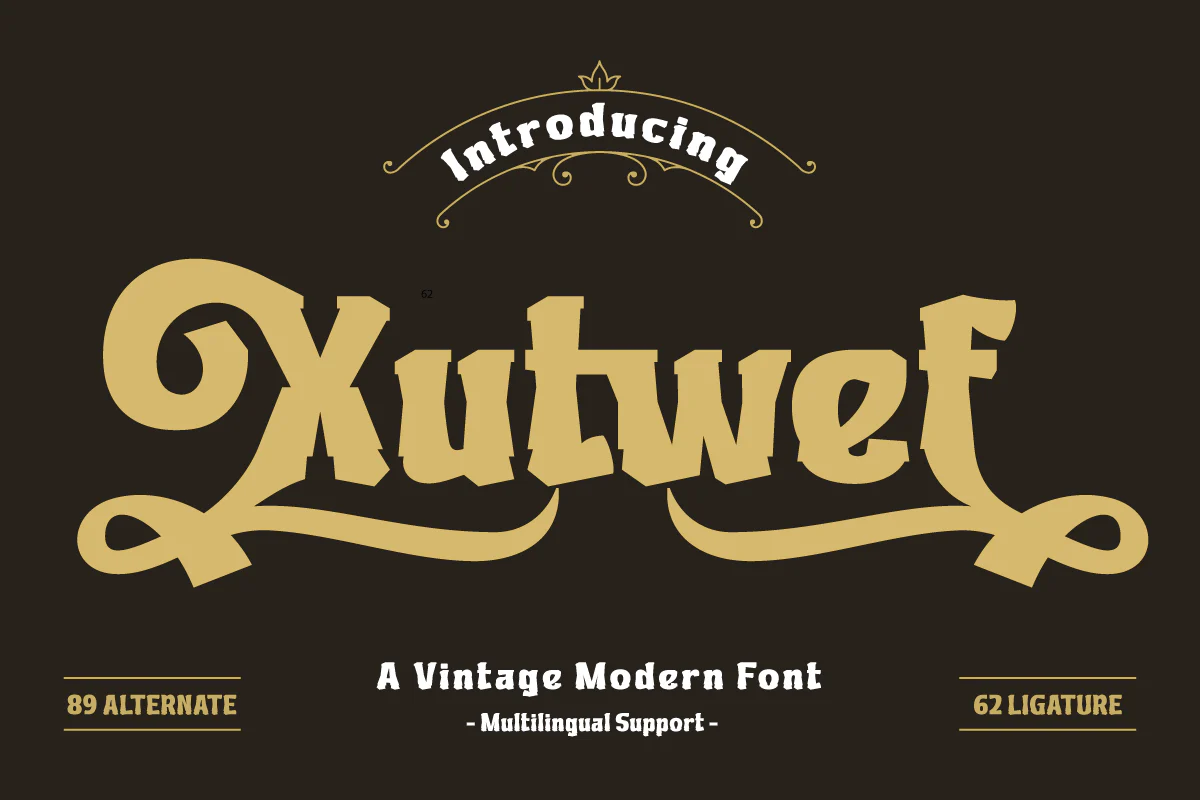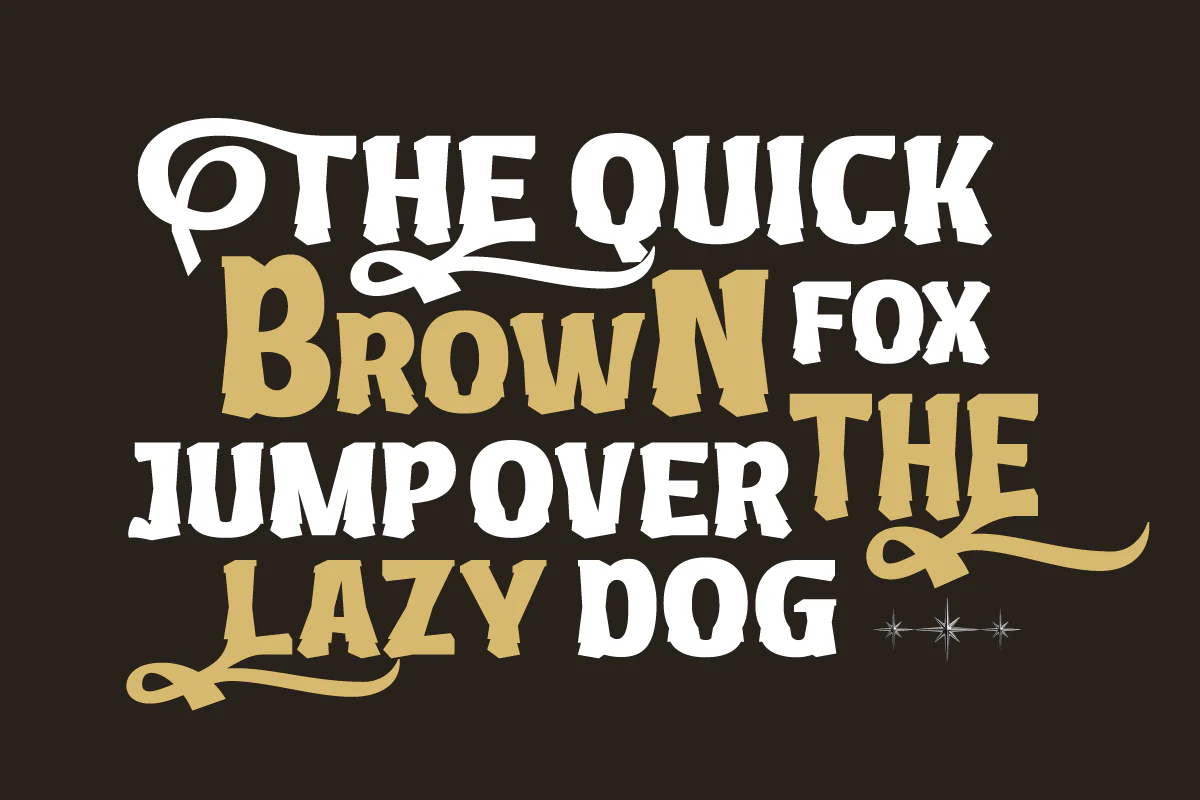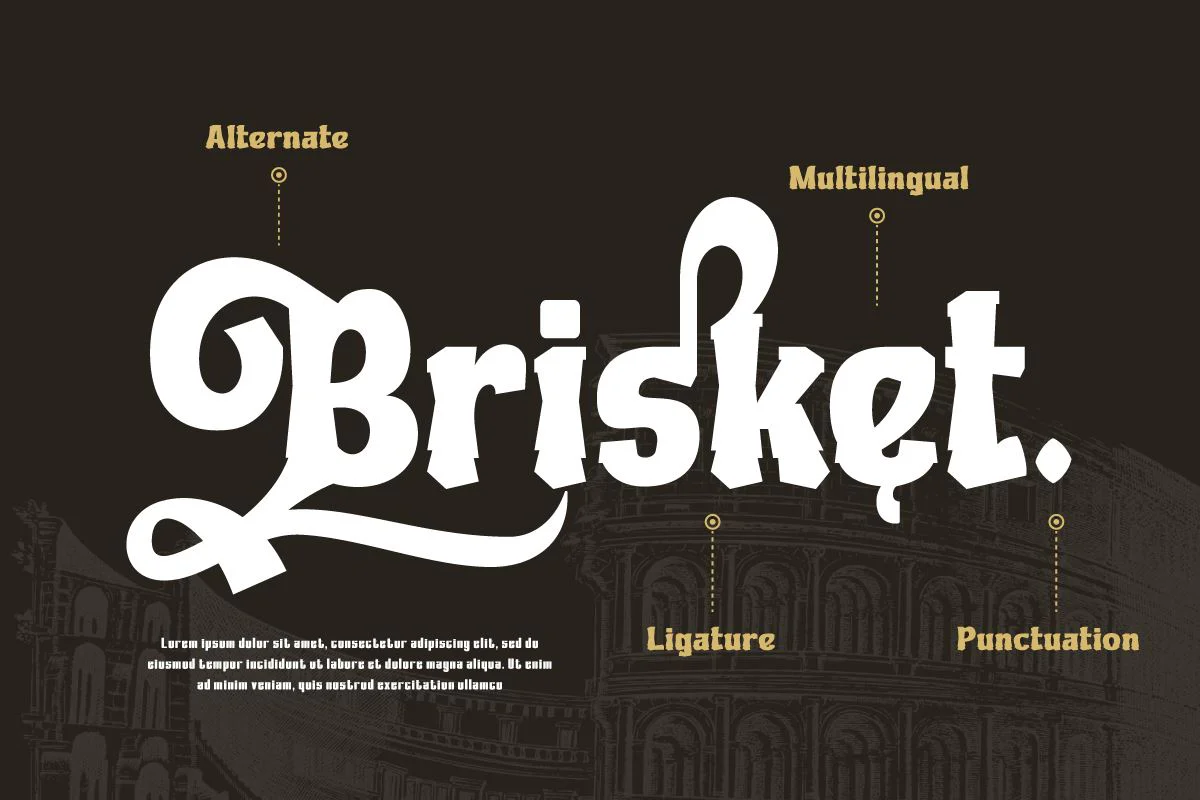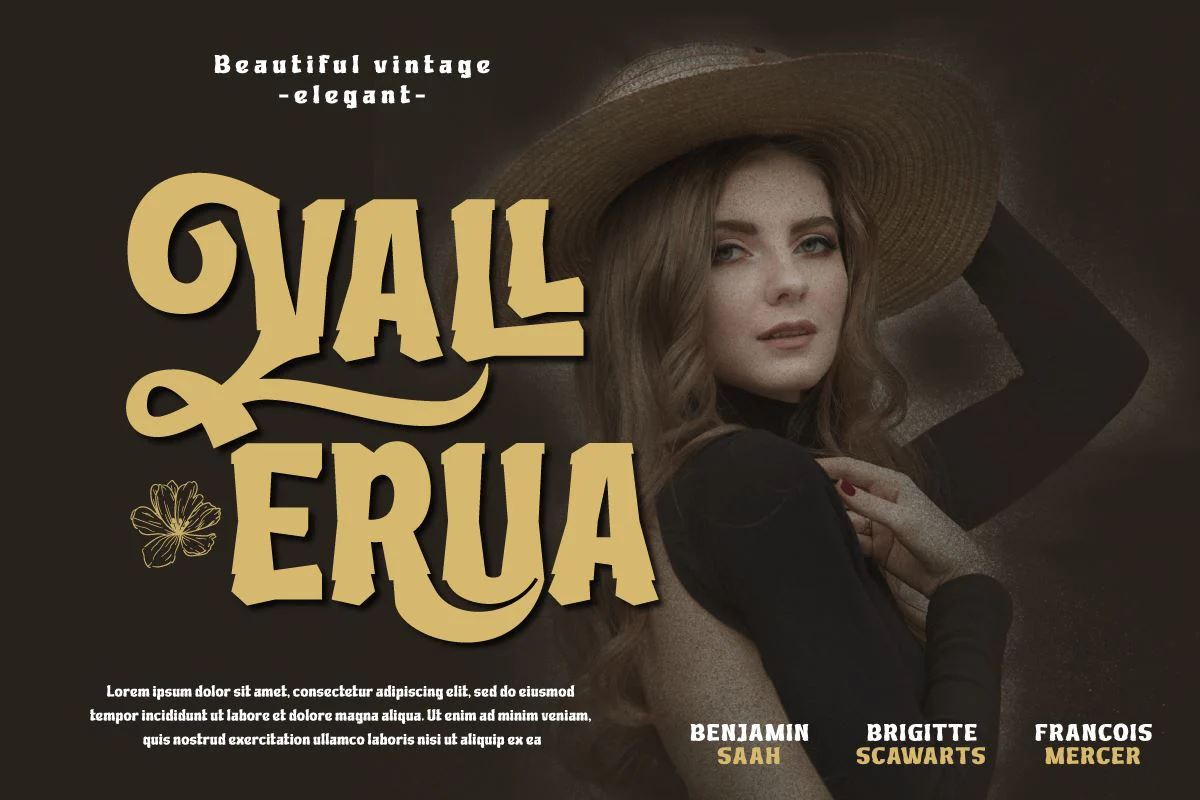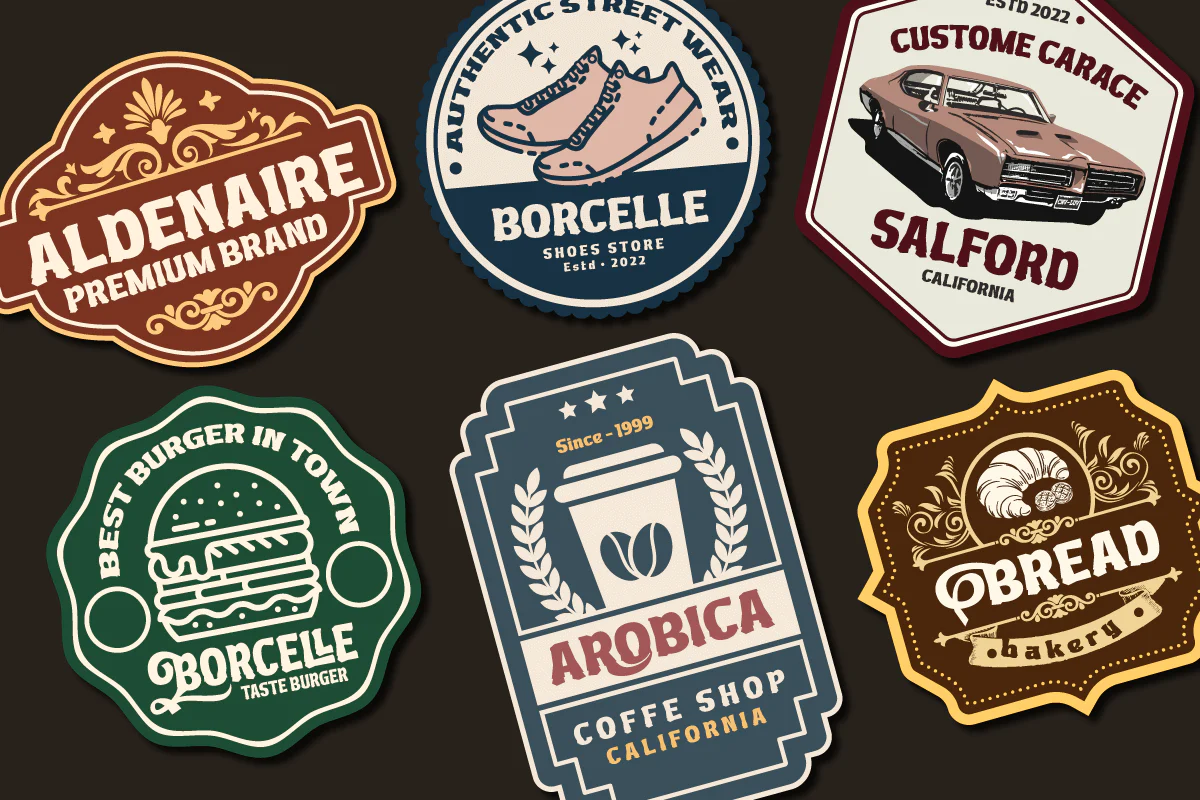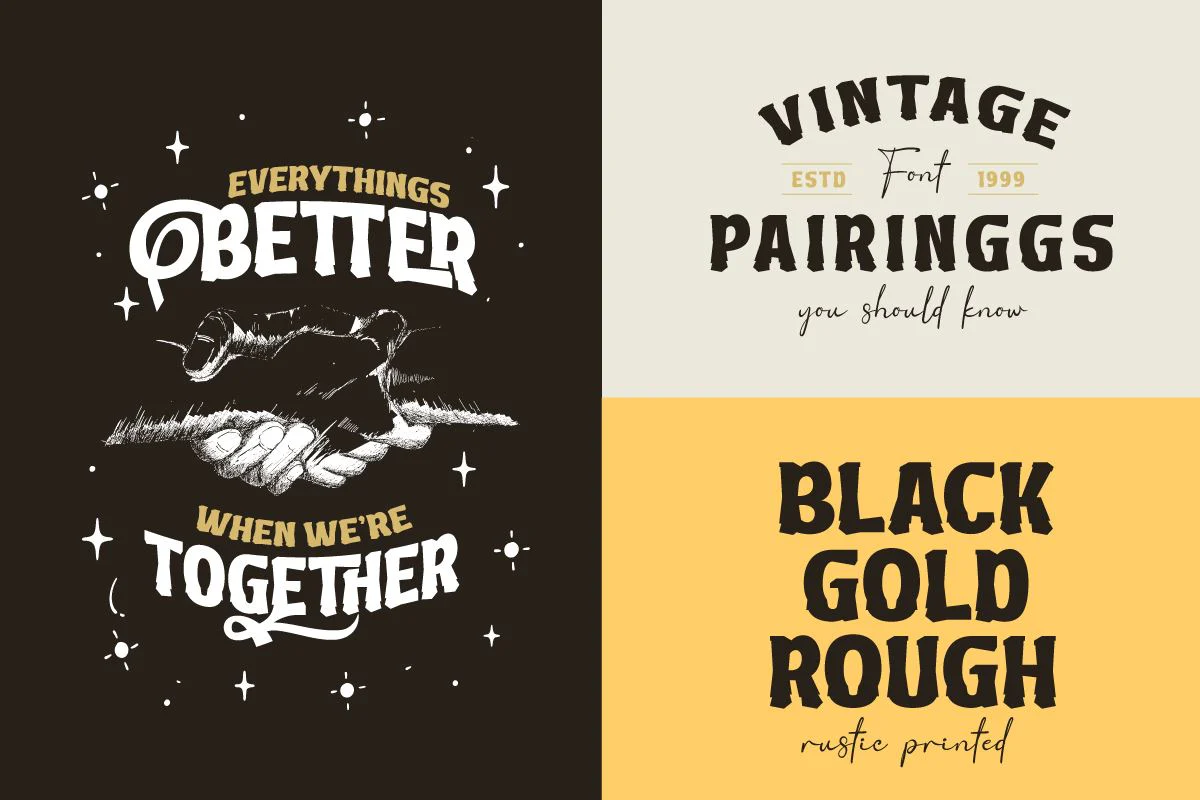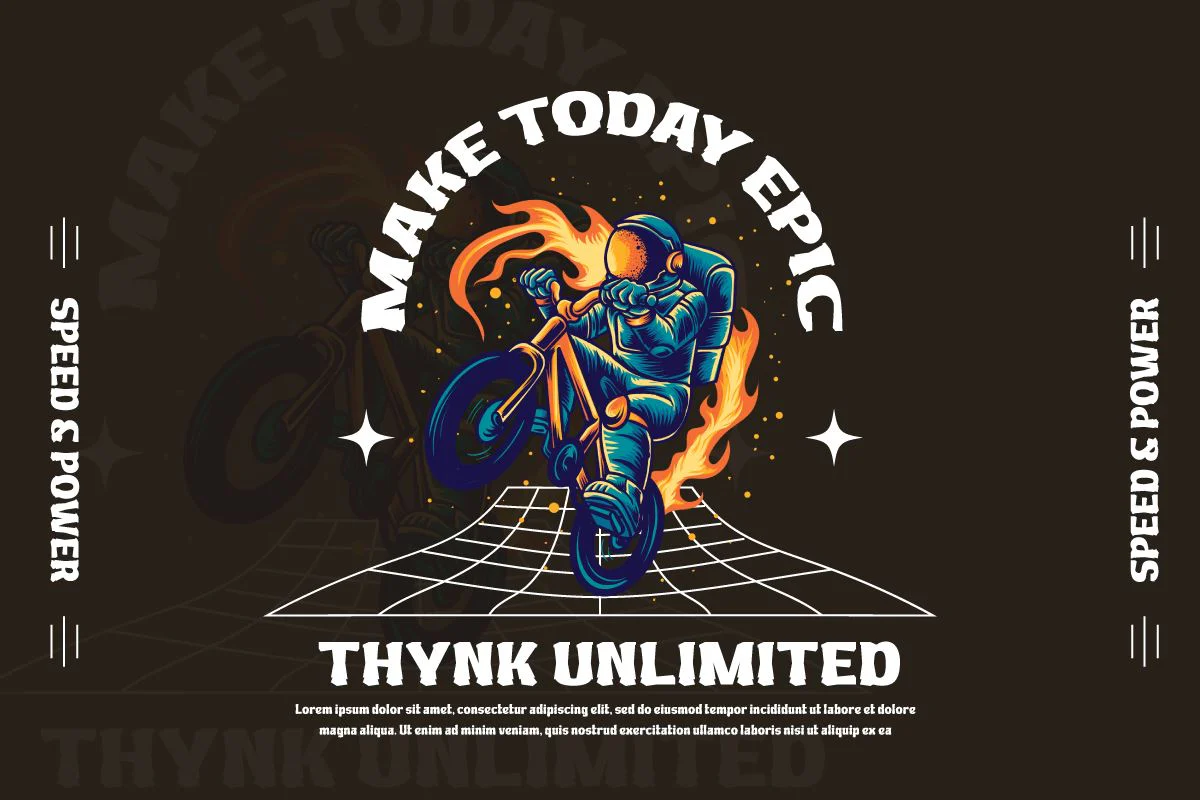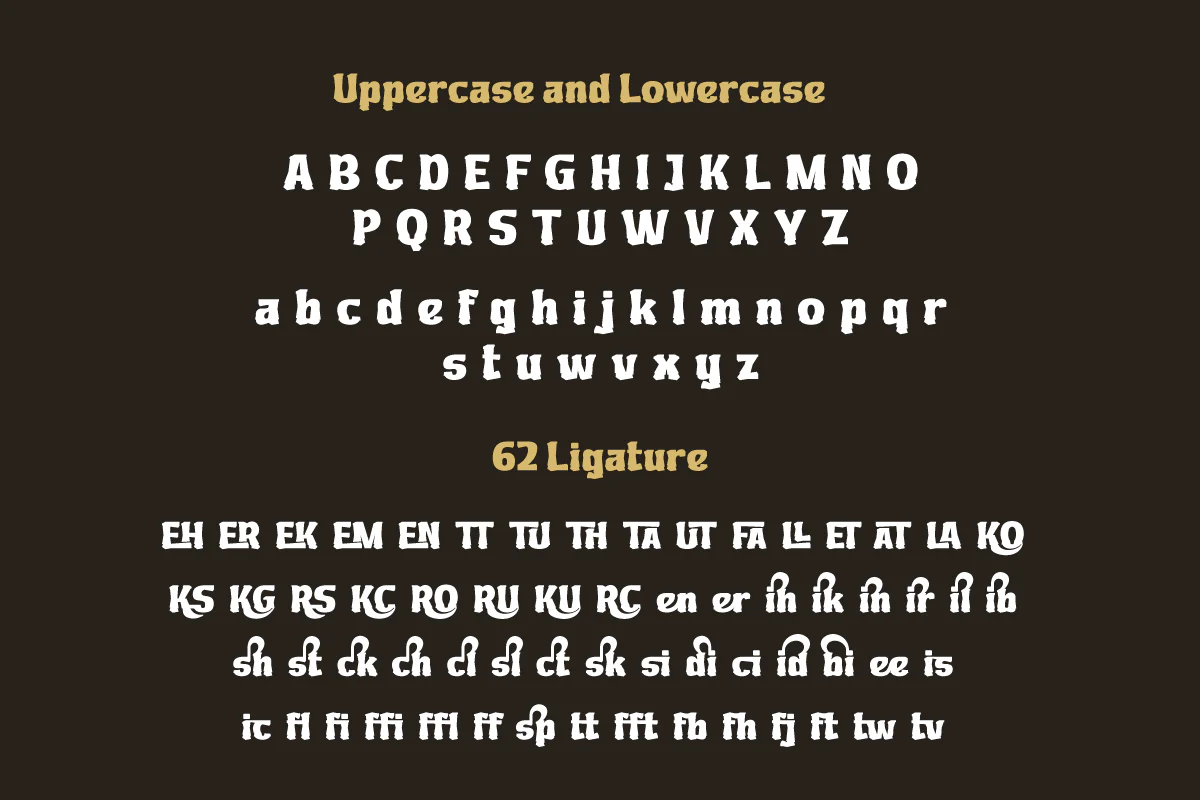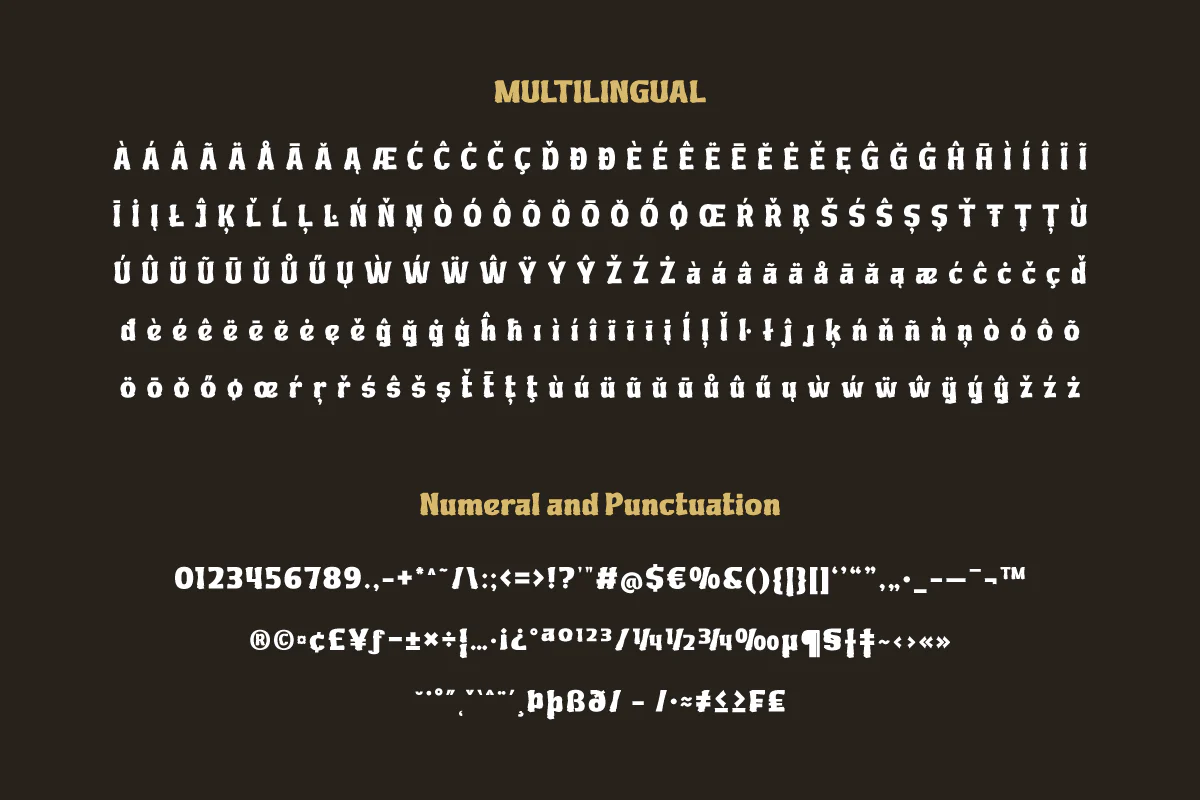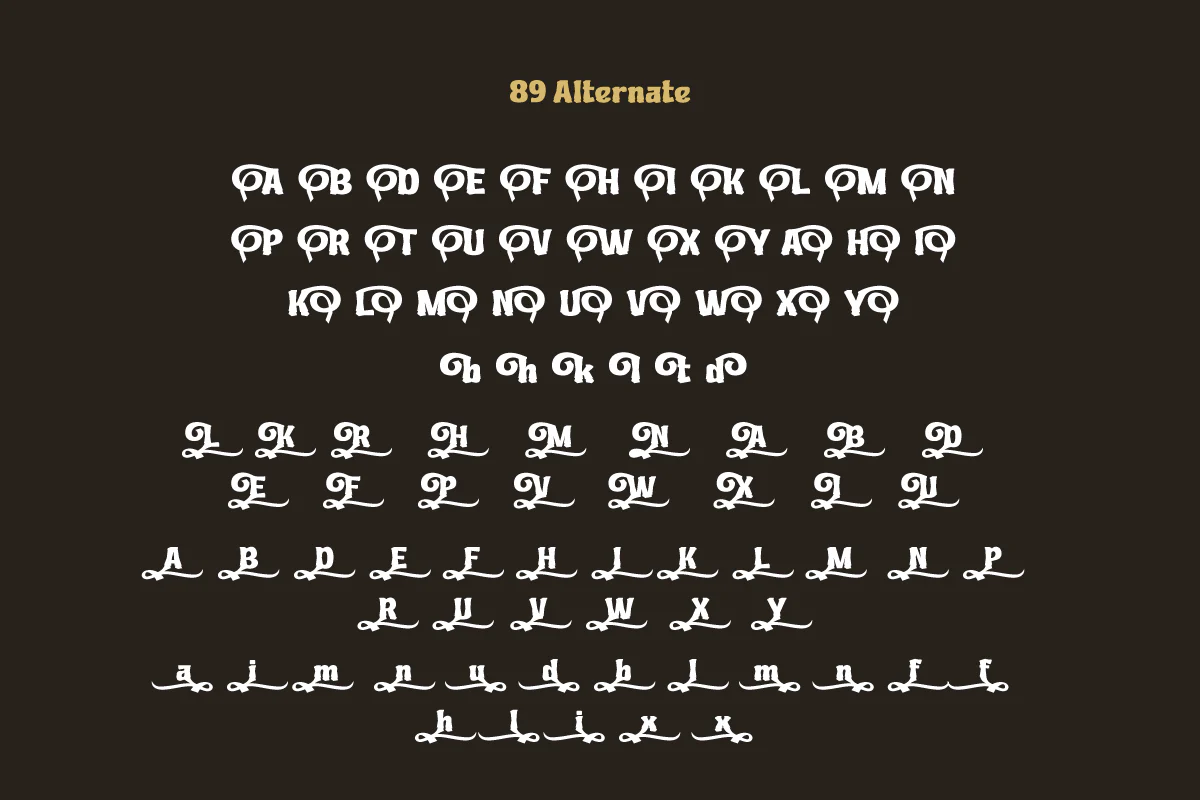
Xutwef | Display Hero Font
Say hello to Xutwef, a superhero-style display font that will emphasize the strong and bold message of your projects. Whether in the world of film, gaming, or design, Xutwef is the perfect solution for creating extraordinary and eye-catching looks. With tough and bold characters, Xutwef presents a strong and eye-catching theme. Each letter is filled with inspiring power, taking your project to another level and creating an unforgettable impression on the audience.
Xutwef offers not only a bold style but also special features that enhance your creativity. With the available ligatures and alternative characters, you can explore a variety of unique and interesting typography combinations. Apart from that, this font also supports multiple languages, allowing you to present a strong message to an international audience.
Say hello to Xutwef, a superhero-style display font that will emphasize the strong and bold message of your projects. Whether in the world of film, gaming, or design, Xutwef is the perfect solution for creating extraordinary and eye-catching looks. With tough and bold characters, Xutwef presents a strong and eye-catching theme. Each letter is filled with inspiring power, taking your project to another level and creating an unforgettable impression on the audience.
Xutwef offers not only a bold style but also special features that enhance your creativity. With the available ligatures and alternative characters, you can explore a variety of unique and interesting typography combinations. Apart from that, this font also supports multiple languages, allowing you to present a strong message to an international audience.